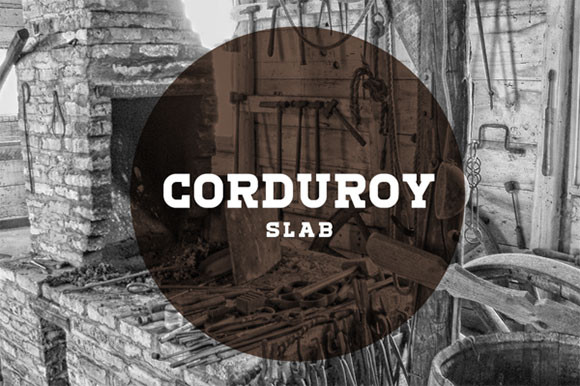
Corduroy Font
This is the FREE Corduroy Font by Ryan Welch which is a display font that is great for any kind of standout headline you might need. For more of Ryan’s work please visit: http://www.ryanwelchdesign.com/